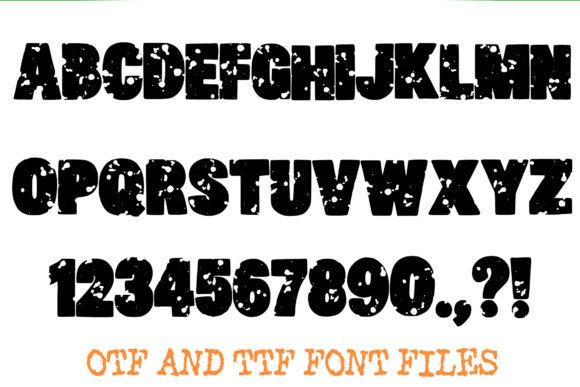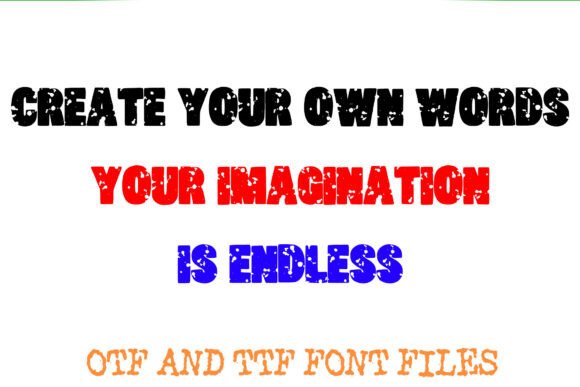
Introduction to Ink Blood Font
Remember the moment when you finally nailed that design project, and everything came together in perfect harmony? The colors, the typography, the overall aesthetic – it all blended seamlessly to create a masterpiece that left you beaming with pride. But what if you could take that design to the next level, adding an extra layer of intensity and emotion that would leave a lasting impact on your audience?
That’s exactly what the Ink Blood Font is designed to do. This bold, high-quality font is not just a design resource – it’s a powerful tool that can elevate your creative project from ordinary to extraordinary. With its heavy, assertive block structure and chillingly authentic ink and blood splatter texture, the Ink Blood Font is the perfect choice for designers who want to make a statement and leave a lasting impression.
Key Features of Ink Blood Font
- High-quality design resource with a unique, creative touch, perfect for any project that needs a distinctive feel.
- Includes a range of glyphs and characters, making it a versatile font suitable for a variety of uses, from titles and headings to body text.
Honest Review: Ink Blood Font
I recently stumbled upon the Ink Blood Font while searching for a unique design resource for my creative project. The font caught my attention with its edgy, gothic-inspired aesthetic.
- ✨ The Ink Blood Font offers a high-quality design that’s perfect for dark-themed projects.
- ✨ The transparent background option allows for easy integration with other design elements.
One of the standout features of the Ink Blood Font is its versatility. It’s suitable for a wide range of creative projects, from horror-themed posters to gothic-inspired invitations.
- ⚠️ The font may not be suitable for all design projects, particularly those with a light or playful tone.
- ⚠️ Some users may find the font’s bold lines and dark colors overwhelming.
Overall, I’m impressed with the Ink Blood Font’s unique design and versatility. While it may not be suitable for every project, it’s a valuable addition to any designer’s collection.
For the best results, use the Ink Blood Font in a creative project where a bold, eye-catching font is required. Experiment with different font sizes, colors, and arrangements to get the most out of this design resource. You can also combine it with other fonts for a unique look.
The Ink Blood Font is ideal for use in posters, flyers, social media graphics, and other promotional materials. Its high-quality design and transparent background make it perfect for overlaying on images or videos. This font can also be used in creative projects like album covers, book covers, and movie titles.